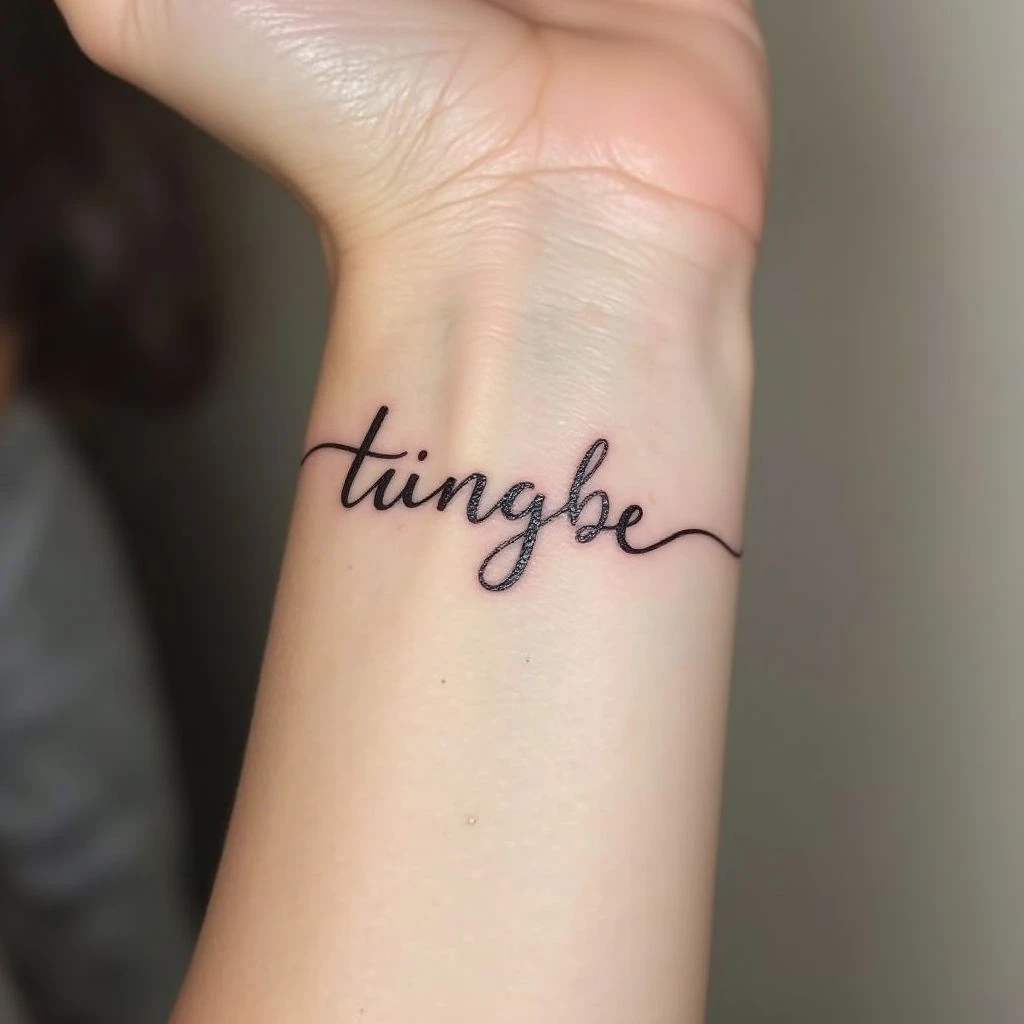
Explore beautiful small script tattoo ideas! Find inspiration for minimalist quotes, delicate fonts, and meaningful placements.
Small Script Tattoos: A Timeless Expression
Why Choose Small Script Tattoos?
Small script tattoos are a timeless way to express yourself through ink. Their minimalist aesthetic allows for delicate designs that hold significant meaning.
Benefits of Small Script Tattoos
• Subtle Expression: They offer a discreet yet powerful way to showcase your values or loved ones.
• Versatile Placement: Perfect for wrists, ankles, behind the ear, collarbones, or fingers – virtually anywhere!
• Timeless Appeal: Classic script fonts never go out of style.
Font Inspiration
• Calligraphy: Elegant and flowing.
• Cursive: A traditional and readable option.
• Brush Script: Adds a casual, handwritten feel.
• Serif/Sans-serif Mixes: Blend formal and modern styles.
Meaningful Quotes
Think about short phrases that resonate with you – lyrics from your favorite song, initials of loved ones, or empowering words.
Tiny Script Tattoos: Delicate Designs & Meaningful Ink